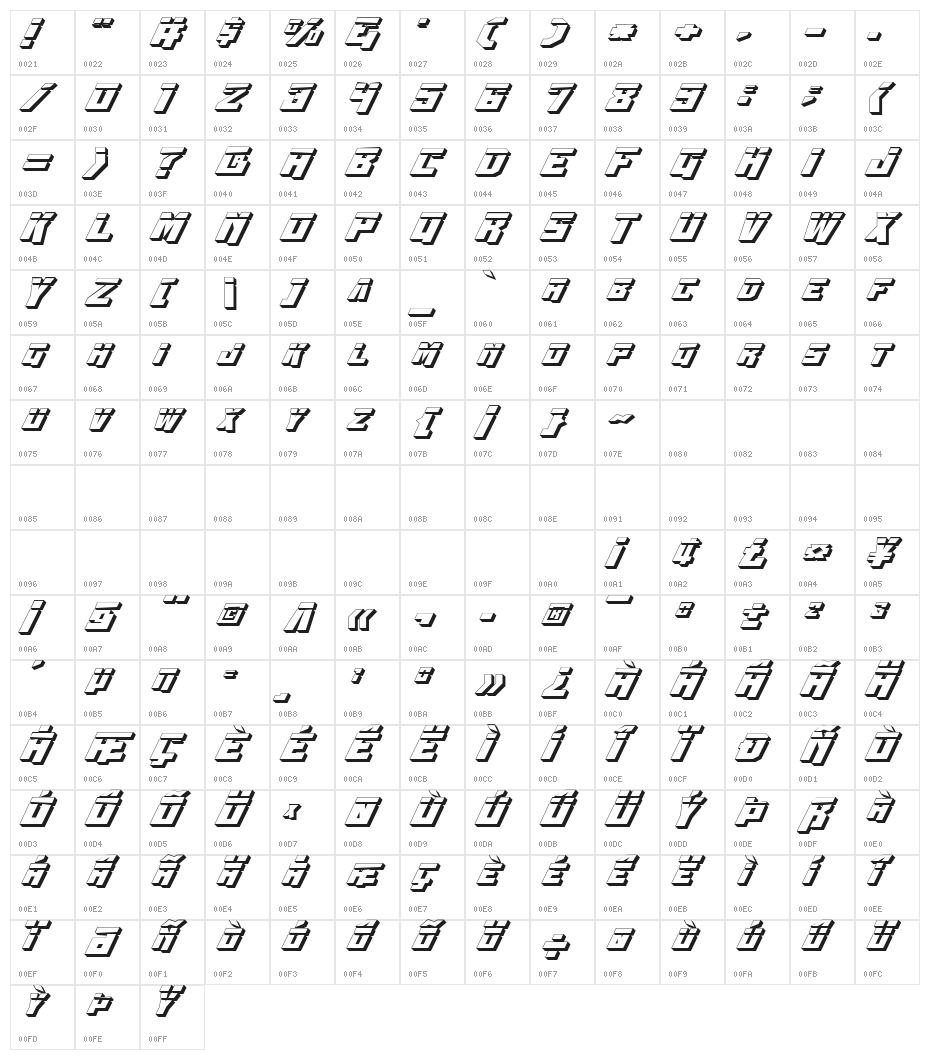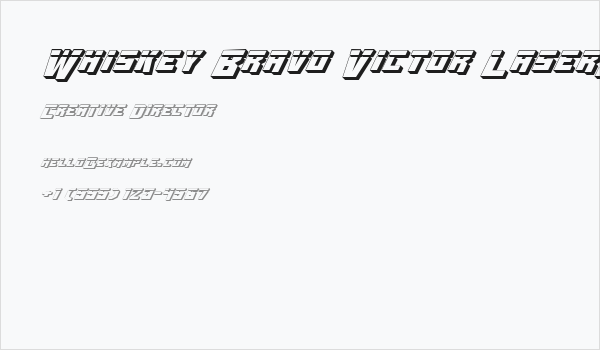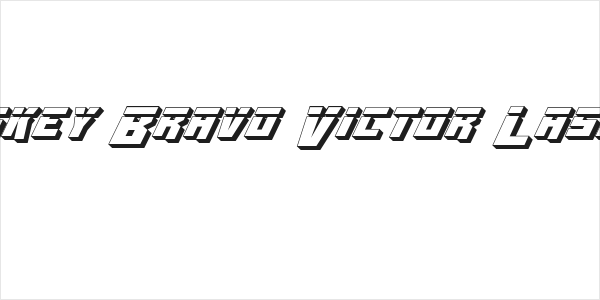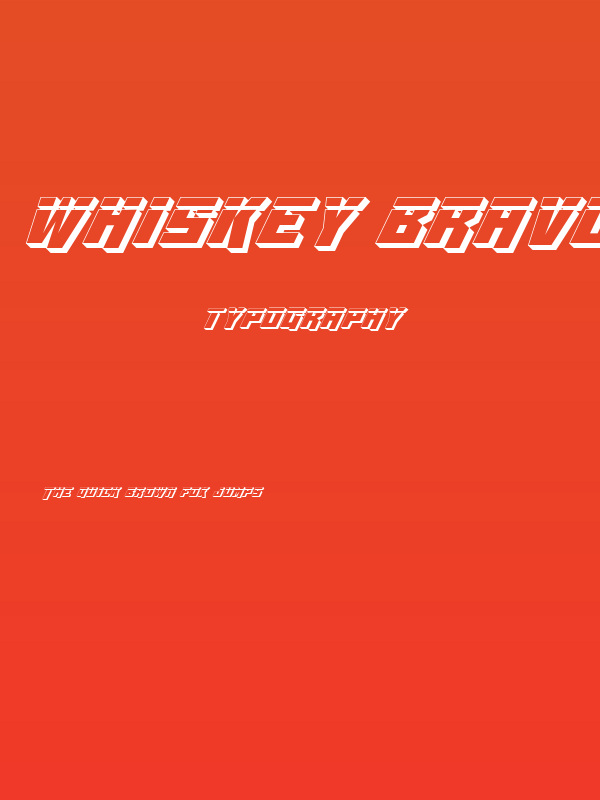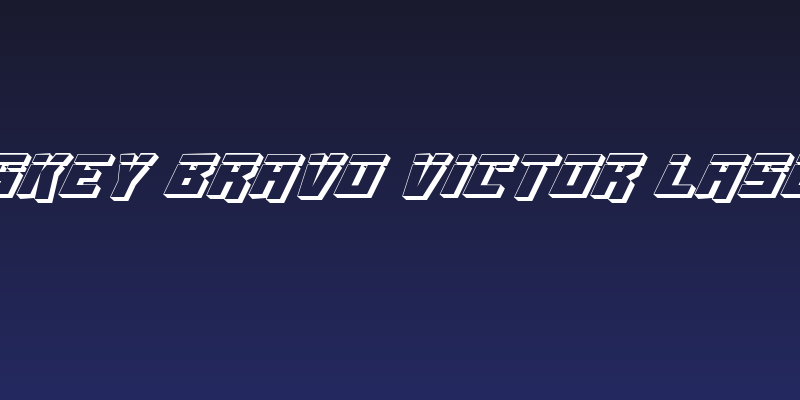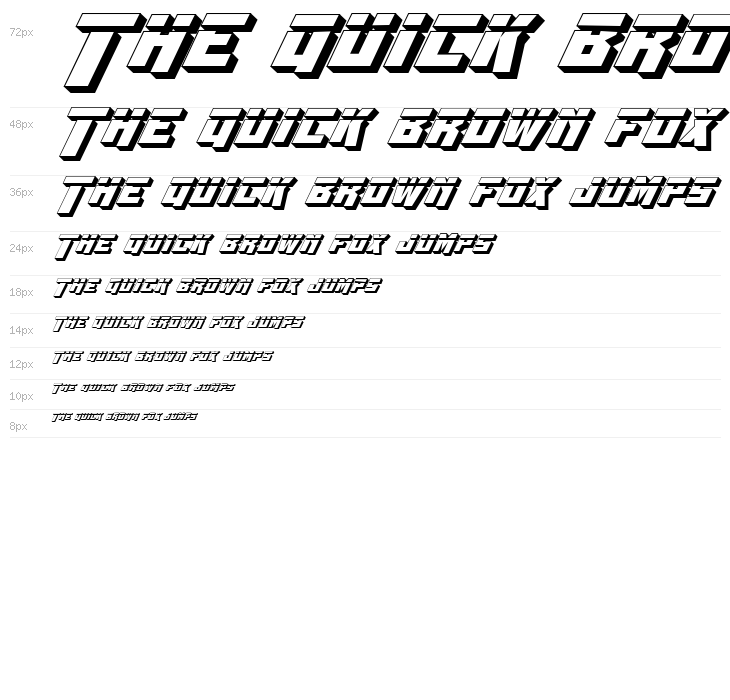
Whiskey Bravo Victor Laser3D Font
Whiskey Bravo Victor Laser3D Description
This font features a bold, three-dimensional design with a futuristic and dynamic appearance. The characters are constructed with a blocky, geometric style, giving them a strong presence. Each letter and number is outlined with a shadow effect, enhancing the 3D illusion and adding depth. The font is highly stylized, with sharp angles and clean lines that create a sense of movement and energy. It is ideal for projects that require a modern and impactful look, such as technology-themed designs or video game graphics. The overall aesthetic is both eye-catching and versatile, making it suitable for a variety of creative applications.
| Proposed Projects | Ideal for technology-themed designs, video game graphics, posters, and logos. |